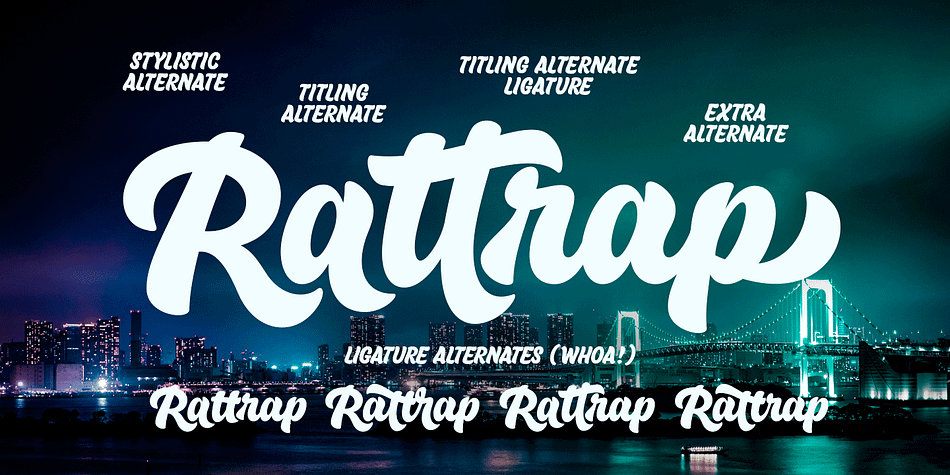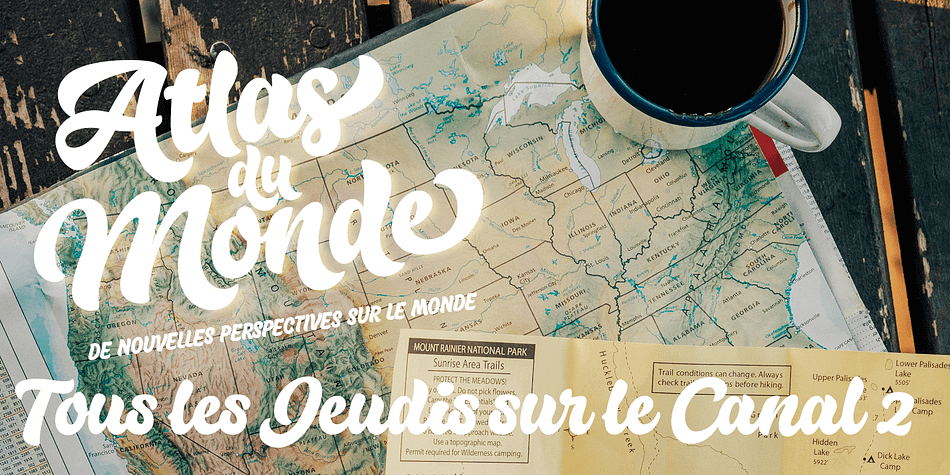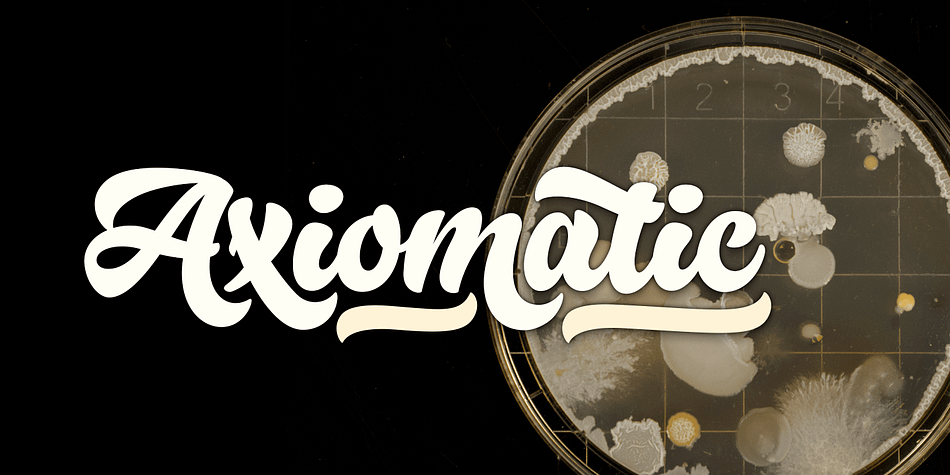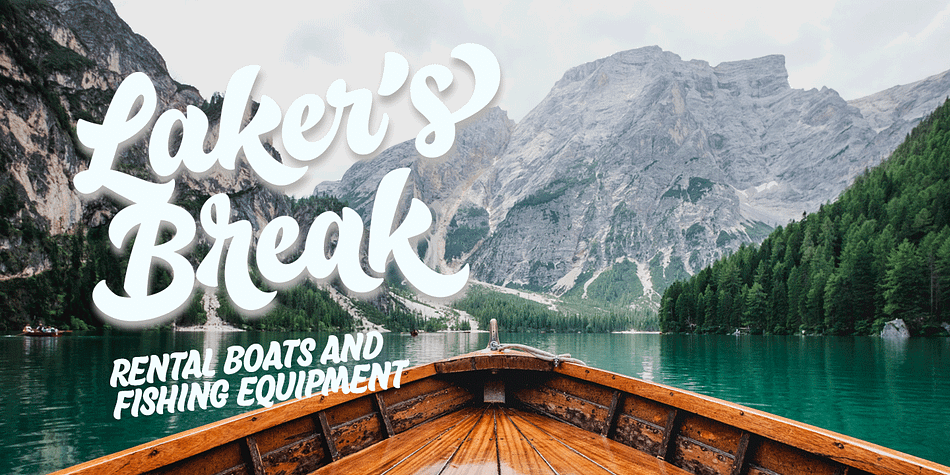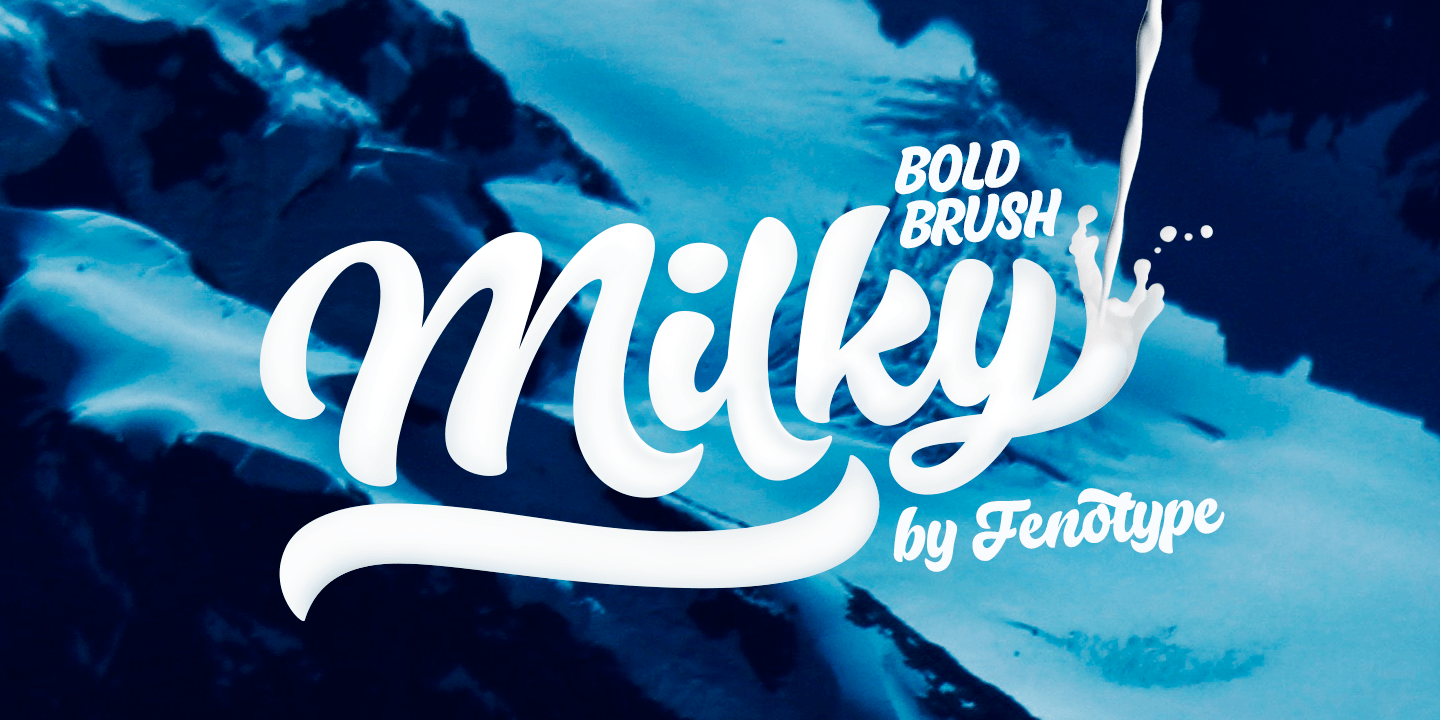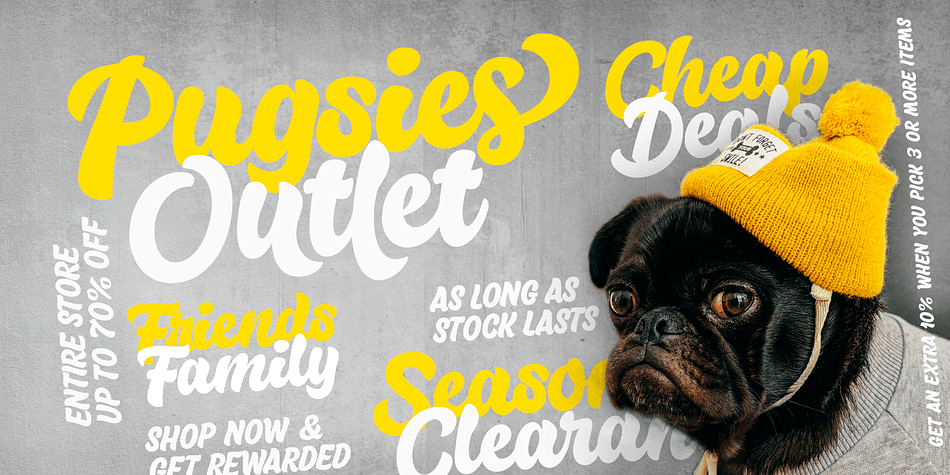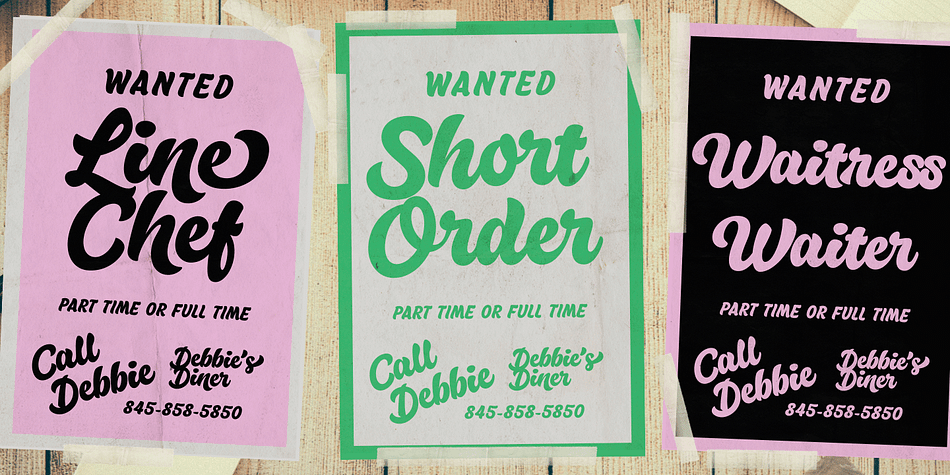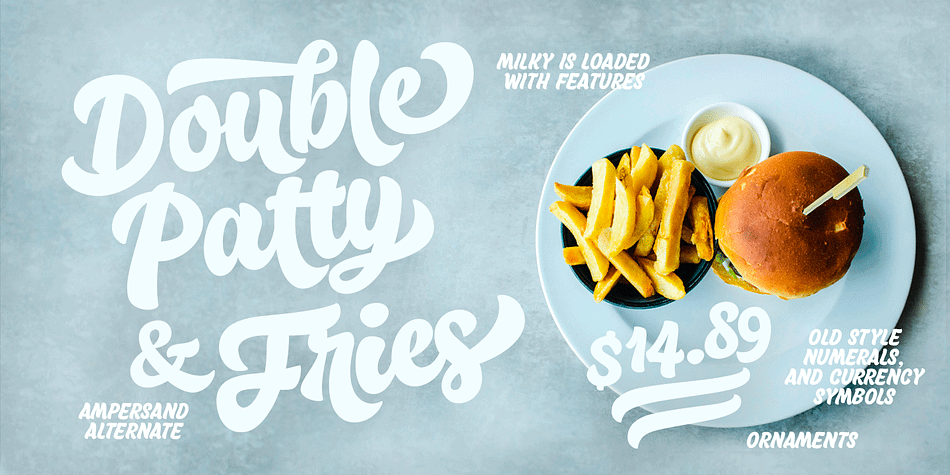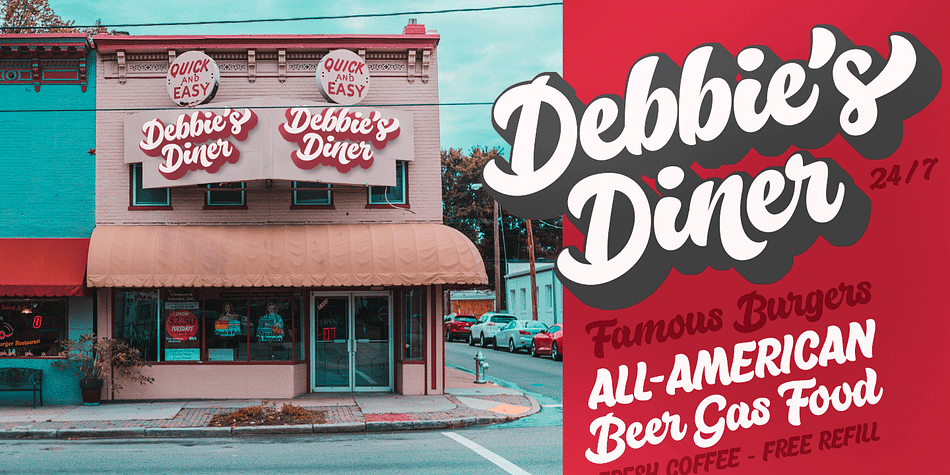
Designed by Emil Bertell, Milky is a brush script, retro and dingbat font family. This typeface has three styles and was published by Fenotype.
Milky is a brisk Brush Script with smooth and bold characters. Milky is both legible and characteristic. It’s strong and friendly, perfect for logotypes, packaging and other branding use.
In addition to Milky Brush Milky family contains Milky Casuals which is an all caps sign painting style casuals drawn with the same proportions as Milky Brush. On top of that there’s Milky Ornaments which contains ending swashes designed to be used with the Brush, and a selection of bold brush strokes with the Milky signature style to complete your designs.
Milky Brush is equipped with Contextual Alternates that add variation to the text and help to maintain the smooth flow. Contextual Alternates are automatically on. For extra flair try Stylistic, Titling or Swash Alternates or seek for even more alternates from the glyph palette. Milky Brush is PUA encoded so you can access the alternates in any graphic design software.